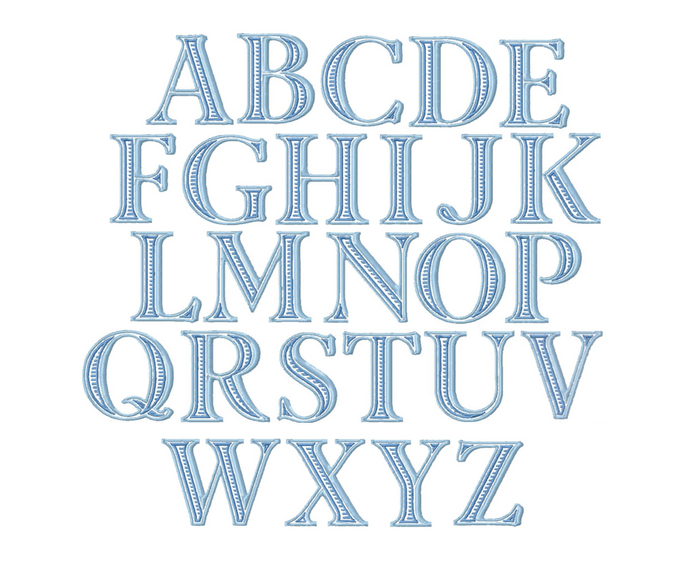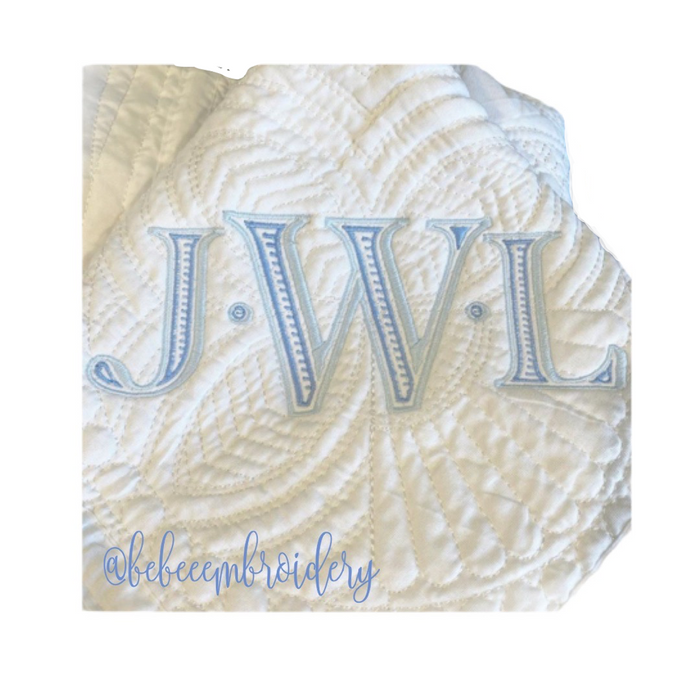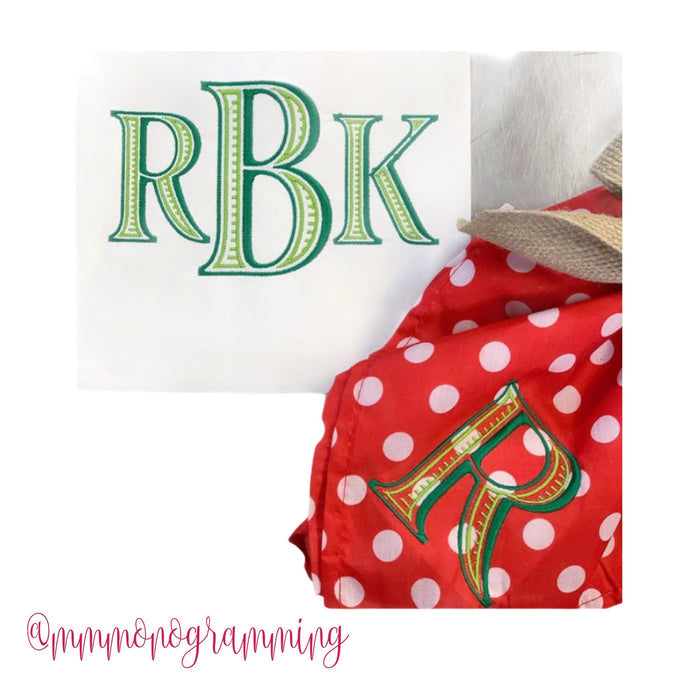
Ryan Ribbed Open Satin Embroidery Font - Crafting Essential
Transform your embroidery projects with the Ryan Ribbed Open Satin Stitch Embroidery Font Package. This versatile font includes 5 sizes of uppercase letters, along with a decorative dot in each size, perfect for creating personalized monograms. All designs conveniently fit inside a 4x4 hoop, making them ideal for various crafting applications.